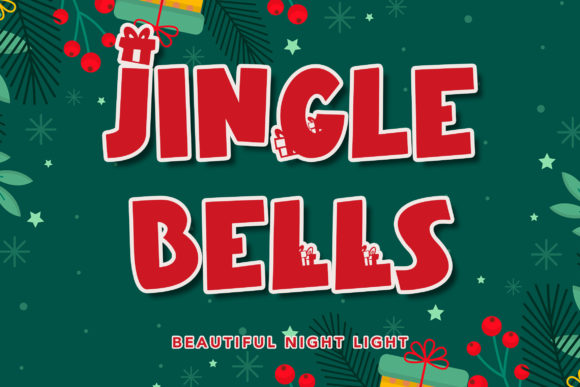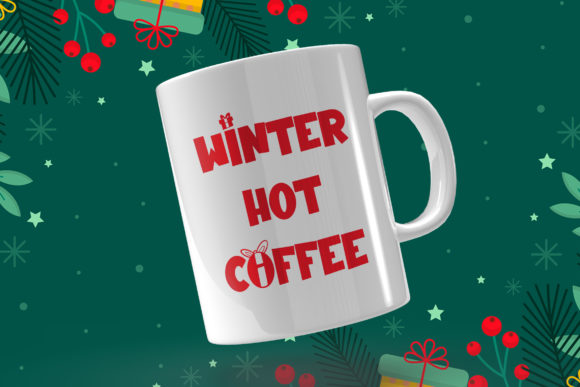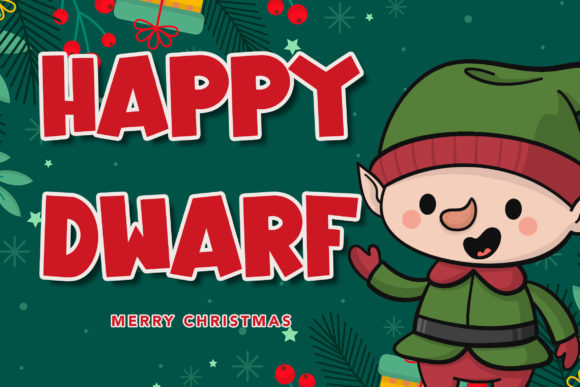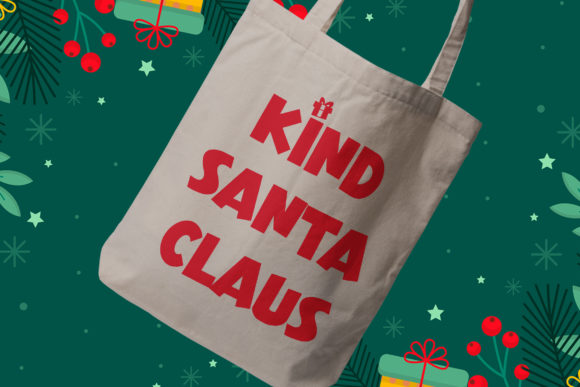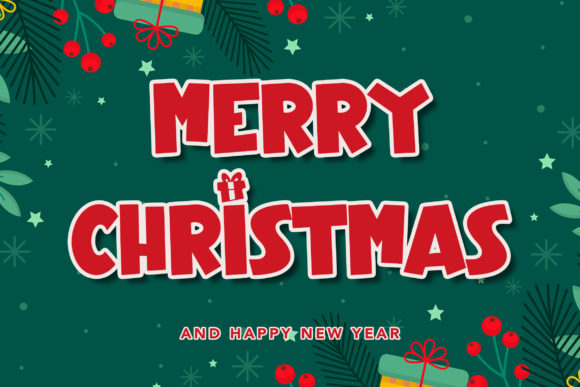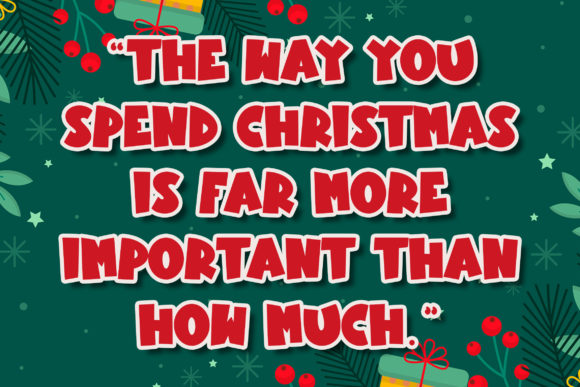
Gifty Glory Font: The Ultimate Christmas-Themed Display Font for Designers and Crafters
Are you looking for a font that can add a touch of festive cheer to your designs? Look no further than the Gifty Glory Font! This Christmas-themed display font is perfect for designers and crafters who want to create bold and eye-catching projects. With its distinctive handwritten characters and bold appearance, Gifty Glory is sure to make your designs stand out.
What is Gifty Glory Font?
Gifty Glory is a Christmas-themed display font that features distinctive handwritten characters and a bold appearance. It is perfect for a variety of design projects, including branding, logos, wedding designs, media posts, advertisements, product packaging, product designs, labels, photography, watermarks, invitations, stationery, and more.
Key Features of Gifty Glory Font
- Distinctive Handwritten Characters: Gifty Glory features unique and elegant handwritten characters that will add a personal touch to your designs.
- Bold Appearance: The font has a bold and eye-catching appearance that will make your designs stand out.
- Christmas-Themed: The font is specifically designed for Christmas-themed projects, making it perfect for holiday designs.
- Versatile: Gifty Glory can be used for a variety of design projects, from branding and logos to wedding designs and product packaging.
Why Designers and Crafters Love Gifty Glory Font
Designers and crafters love Gifty Glory Font for its versatility and ease of use. The font is perfect for creating a wide range of designs, from elegant wedding invitations to bold product packaging. The font is also easy to read and understand, making it perfect for designs that require a clear and concise message.
Use Cases for Gifty Glory Font
- Branding Projects: Use Gifty Glory to create bold and eye-catching logos and branding materials.
- Wedding Designs: Create elegant and sophisticated wedding invitations, stationery, and decorations with Gifty Glory.
- Media Posts: Use Gifty Glory to create eye-catching social media posts and advertisements.
- Product Packaging: Add a touch of festive cheer to your product packaging with Gifty Glory.
- Invitations and Stationery: Create beautiful and elegant invitations and stationery with Gifty Glory.
Tips for Using Gifty Glory Font
- Experiment with Different Sizes: Gifty Glory looks great in large and small sizes, so experiment with different sizes to find the perfect fit for your design.
- Pair with Other Fonts: Pair Gifty Glory with other fonts to create a unique and eye-catching design.
- Use for Headlines and Titles: Use Gifty Glory for headlines and titles to add a touch of festive cheer to your designs.
Gifty Glory Font is a versatile and elegant Christmas-themed display font that is perfect for designers and crafters. With its distinctive handwritten characters and bold appearance, Gifty Glory is sure to make your designs stand out. Whether you’re creating branding projects, wedding designs, media posts, or product packaging, Gifty Glory is the perfect font for your design needs.